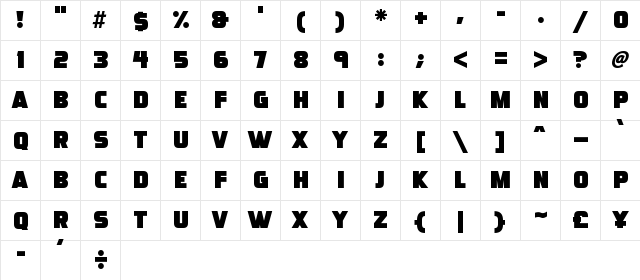
Ultraquick Regular Font Preview
Ultraquick Regular
Design Context for Ultraquick Typeface
Ultraquick is a composed and adaptable typeface that performs quietly and consistently across a wide range of design contexts.